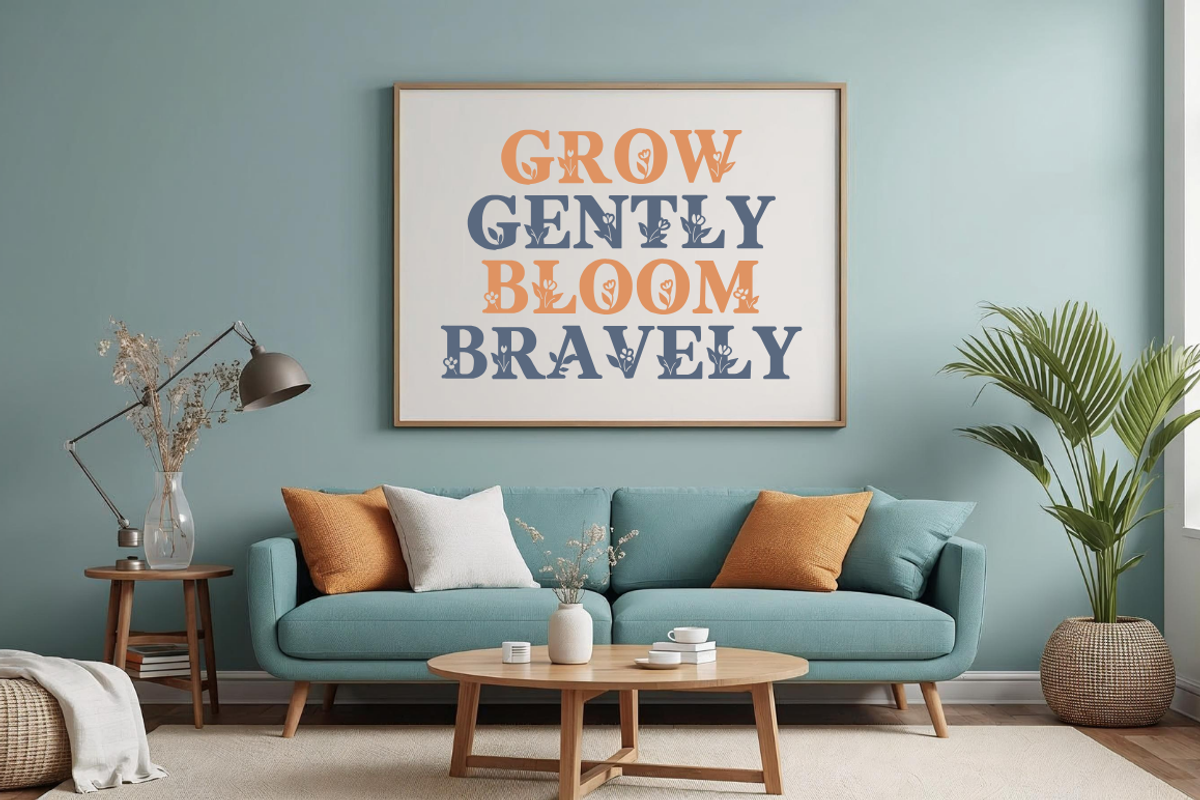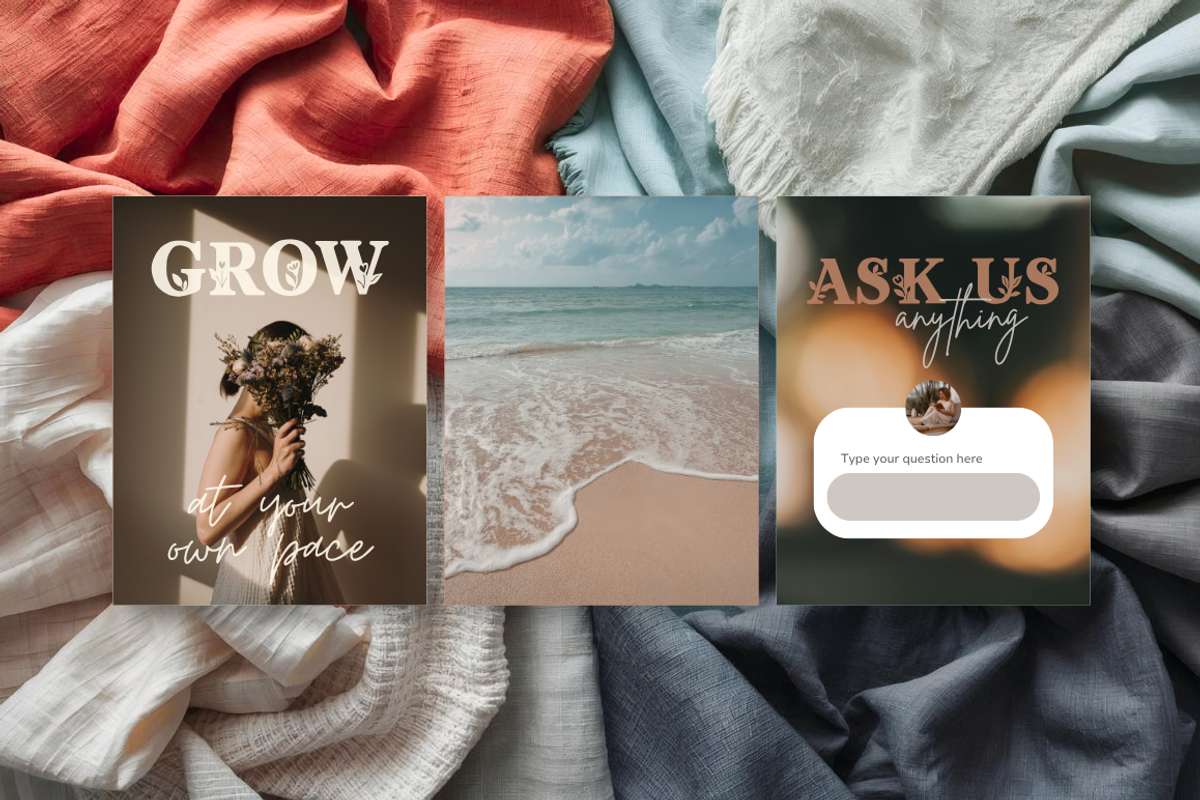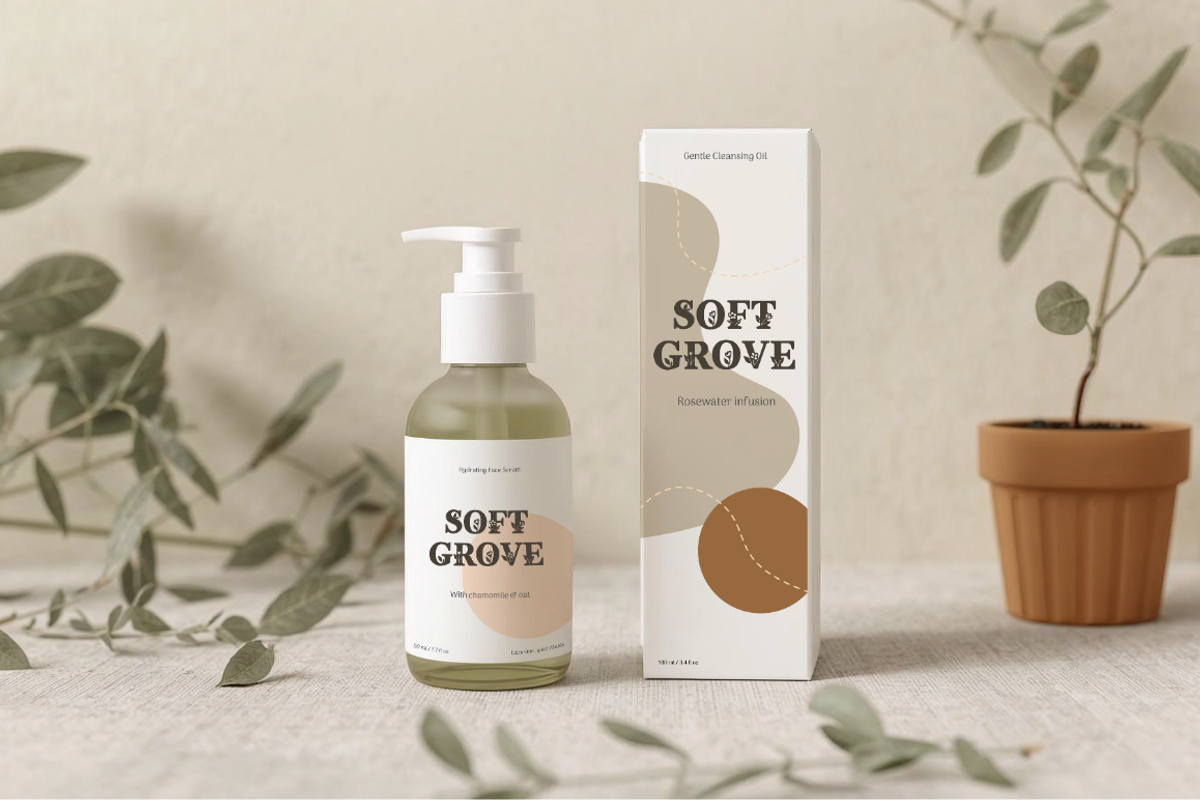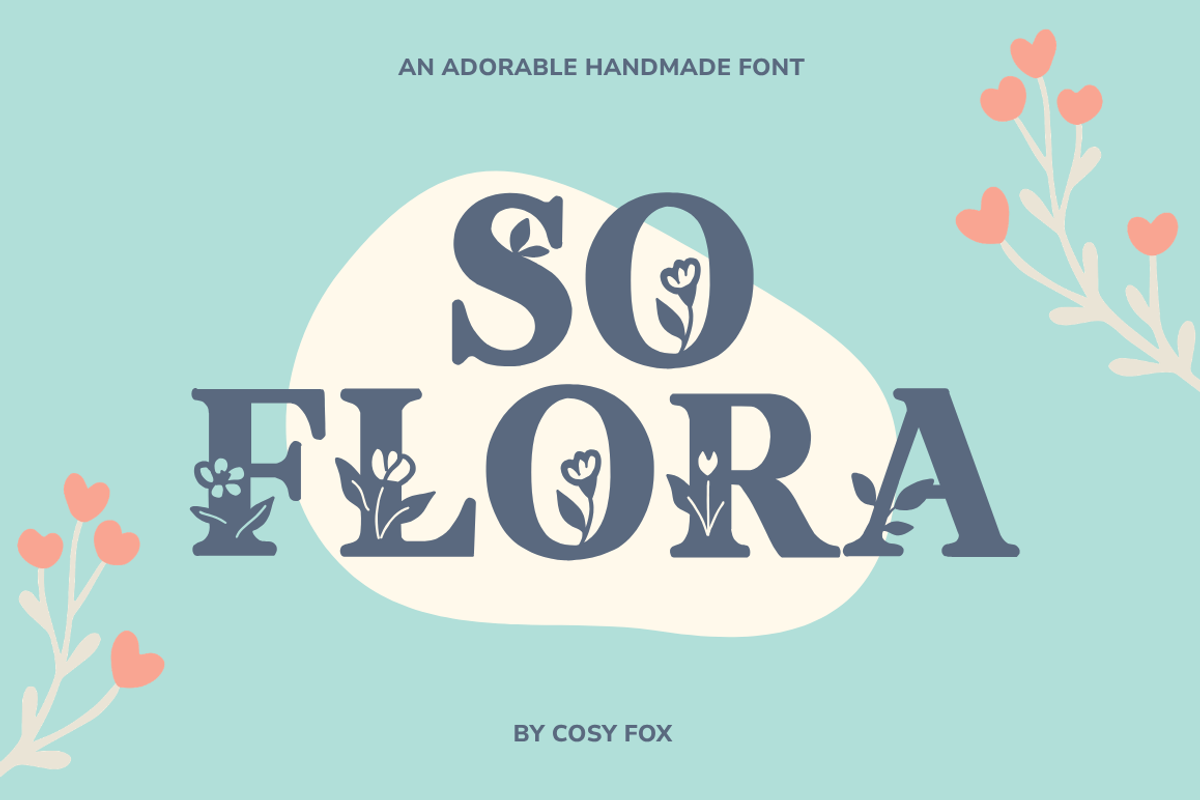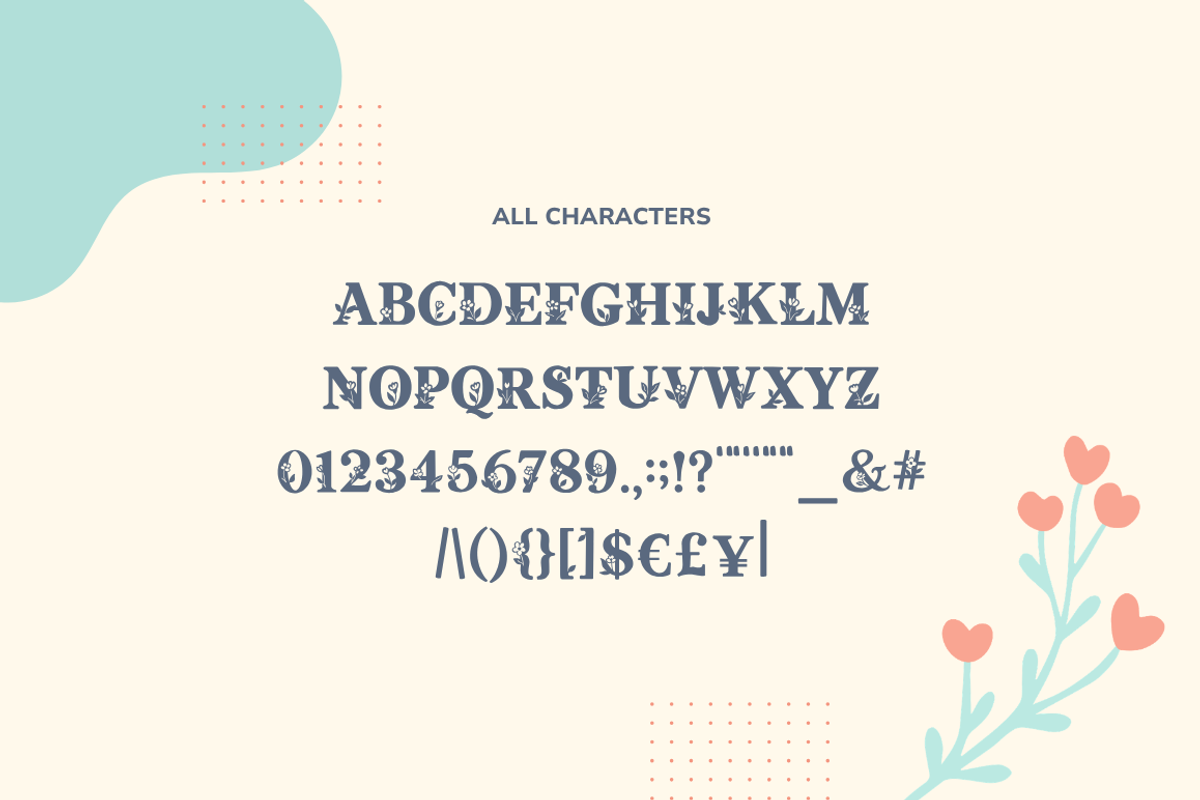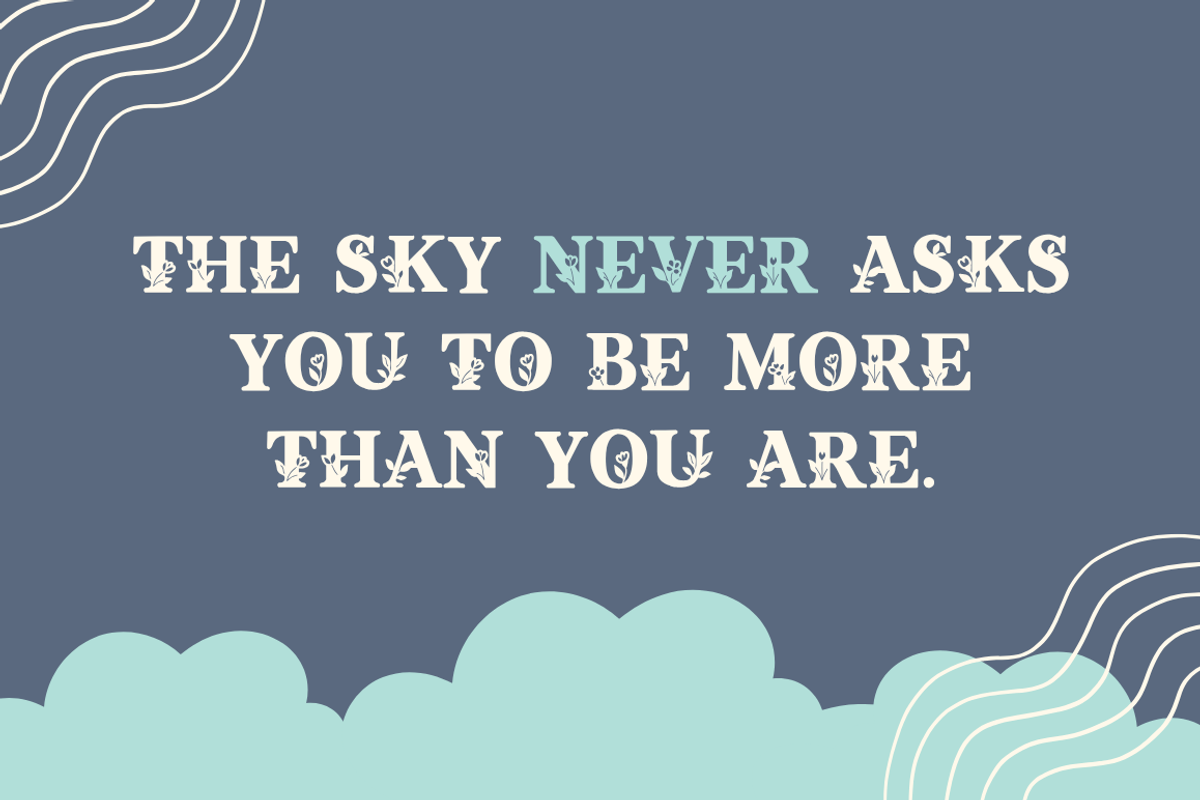
So Flora Display Font
Introducing So Flora, a soft floral display font designed to bring a gentle, botanical touch to your work. Each letter has been hand-drawn for that slightly organic feel.
So Flora feels right at home on branding, packaging, social posts, or in your personal projects where a softer voice is needed. It pairs beautifully with clean, minimal type, allowing the details to shine without overwhelming your design.